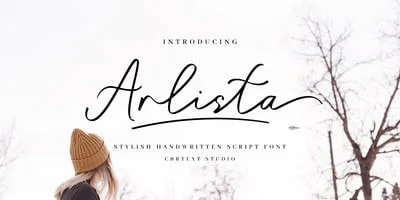
Arlista Font
Arlista Font is perfect for creative studio branding, artistic exhibition posters, contemporary gallery signage, designer portfolio websites, modern art publications, innovative agency logos, cultural event promotions, and sophisticated creative campaigns. This expressive typeface excels in artistic environments, creative industry applications, and any project requiring inspired elegance that captures the essence of contemporary artistry and creative vision through refined visual sophistication.
What makes Arlista Font exciting is its exceptional ability to embody artistic inspiration and creative excellence through thoughtfully crafted letterforms that balance contemporary innovation with timeless artistic principles. The font features artistically designed characters with creative curves and inspired proportions that evoke feelings of artistic passion and creative sophistication, making it ideal for brands seeking to establish connections with creative communities and communicate through expressive visual language. Its artistic presence ensures immediate recognition of creative authenticity and inspired design.
Arlista Font family includes multiple weights and styles: Regular, Bold, Light, Medium, Italic variations, and artistic alternates with creative embellishments and inspired decorative elements. Each family member maintains the distinctive artistic character while offering comprehensive design options for creative campaigns, from expressive descriptive text to inspiring headlines that establish creative authority and artistic credibility through sophisticated contemporary typography.
Whether you're designing artistic brand identities or creating inspiring creative marketing campaigns, Arlista Font provides the perfect typography solution for artistic branding needs. This font transforms ordinary text into expressive artistic statements that communicate creative vision and inspired sophistication. Creative agencies and artistic institutions choose this typeface for its ability to convey artistic excellence through thoughtfully crafted letterforms that inspire creativity and celebrate the beautiful intersection of contemporary design and timeless artistic expression.